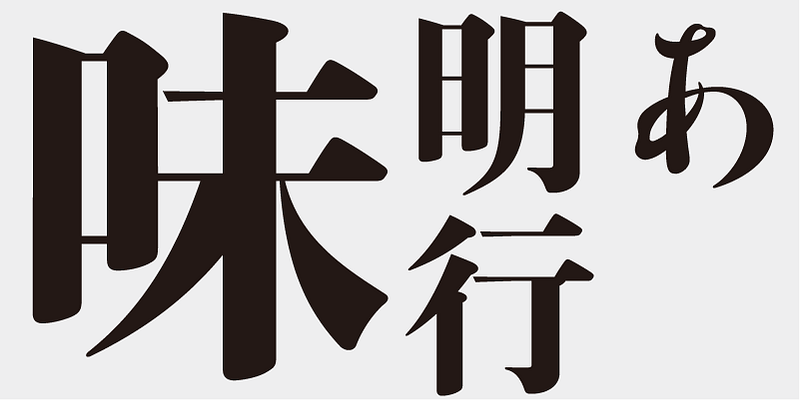
AB Ajimin Gyo/EB Font Free Download is a high-end extra bold serif typeface rooted in the traditional beauty of Japanese Mincho, enriched with a sophisticated and expressive twist. The Gyo/EB (Extra Bold) variation features graceful curves, strong vertical strokes, and elegant contrast—making it ideal for editorial design, book covers, luxury branding, and any project that demands cultural depth and bold visual impact.
This font stands out with its blend of classical calligraphic influence and modern readability. Supporting both Japanese and Latin scripts, AB Ajimin Gyo/EB offers seamless integration for bilingual or international design projects while maintaining a refined, poetic presence.